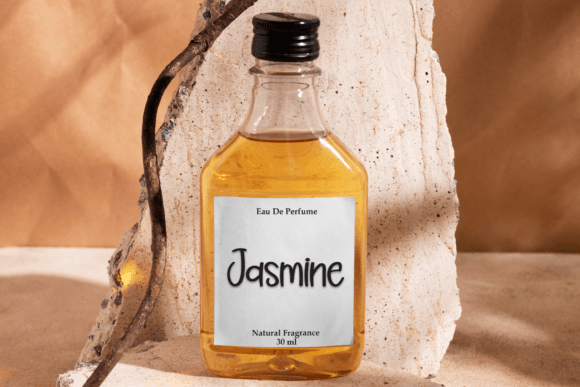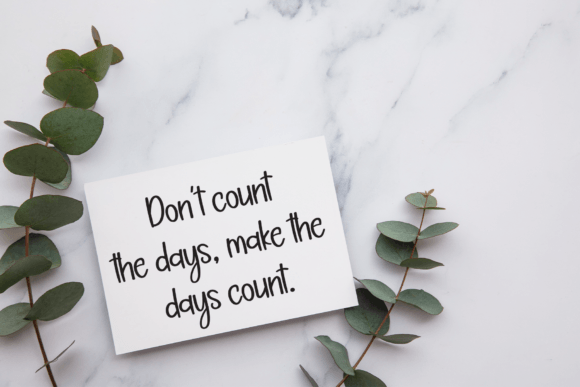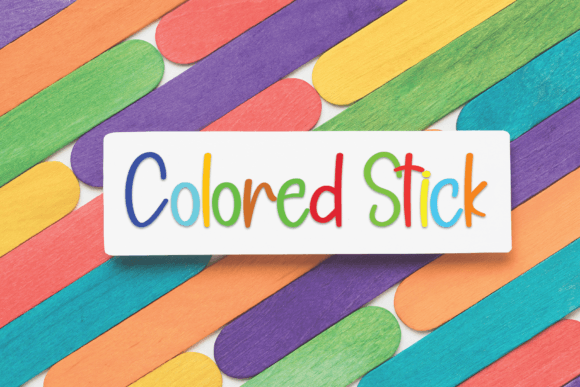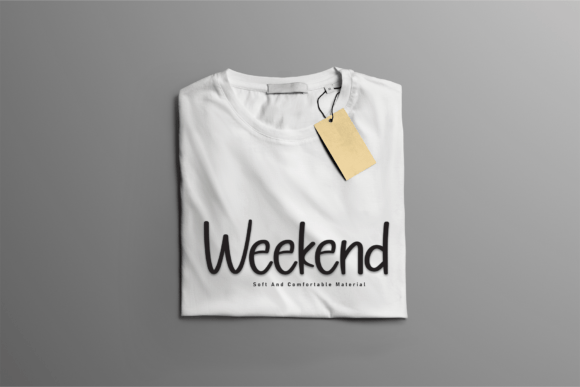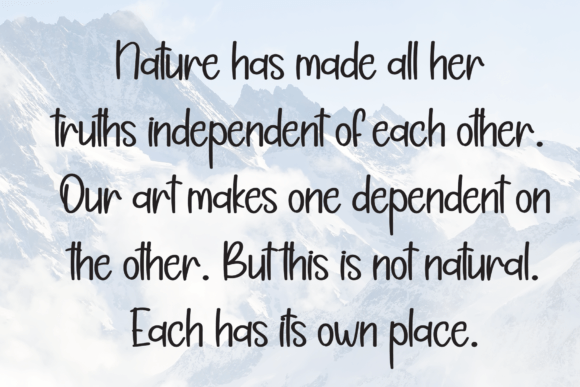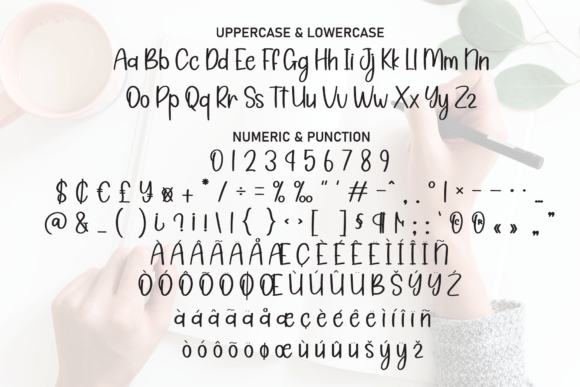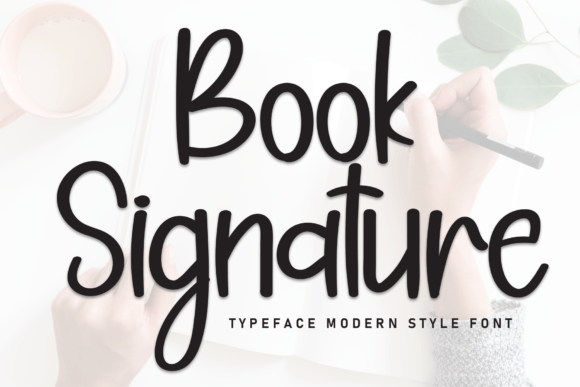
Introducing Book Signature Font: The Sweet and Friendly Handwritten Display Font
Are you looking for a font that can add a touch of warmth and personality to your designs? Look no further than Book Signature Font! This sweet and friendly handwritten display font is perfect for creating beautiful wedding invitations, cards, and other designs that require a fun and playful touch.
What Makes Book Signature Font Special?
Book Signature Font is a one-of-a-kind handwritten font that is both cute and fun. Its unique and elegant style makes it ideal for a variety of design projects, from wedding invitations and cards to posters, flyers, and more. The font’s friendly and approachable feel makes it perfect for designers and crafters who want to add a personal touch to their work.
Characteristics of Book Signature Font
So, what makes Book Signature Font so special? Here are some of its key characteristics:
• Handwritten style: Book Signature Font is a handwritten font that has been carefully crafted to mimic the look and feel of real handwriting.
• Sweet and friendly: The font has a sweet and friendly feel that makes it perfect for designs that require a personal touch.
• Display font: Book Signature Font is a display font that is designed to make a statement. It’s perfect for headings, titles, and other design elements that need to stand out.
• Cute and fun: The font’s cute and fun style makes it ideal for designs that require a playful touch.
Uses for Book Signature Font
So, what can you use Book Signature Font for? The possibilities are endless! Here are some ideas to get you started:
• Wedding invitations: Book Signature Font is perfect for creating beautiful and elegant wedding invitations that will make your clients swoon.
• Cards: The font is also great for creating fun and playful cards for birthdays, holidays, and other special occasions.
• Posters and flyers: Book Signature Font can add a touch of personality to your posters and flyers, making them stand out from the crowd.
• Social media graphics: The font is also perfect for creating social media graphics that require a fun and playful touch.
Tips for Using Book Signature Font
Here are some tips for using Book Signature Font in your designs:
• Use it sparingly: Book Signature Font is a display font, so it’s best to use it sparingly. Use it for headings and titles, and pair it with a simpler font for body text.
• Experiment with colors: The font looks great in a variety of colors, so don’t be afraid to experiment and find the perfect color for your design.
• Add some flair: Book Signature Font is perfect for adding a touch of personality to your designs. Consider adding some flair with graphics, illustrations, or other design elements.
Book Signature Font is a sweet and friendly handwritten display font that is perfect for designers and crafters who want to add a personal touch to their work. Its unique and elegant style makes it ideal for a variety of design projects, from wedding invitations and cards to posters, flyers, and more. With its cute and fun style, Book Signature Font is sure to bring a smile to your clients’ faces. So why not give it a try and see what amazing designs you can create?